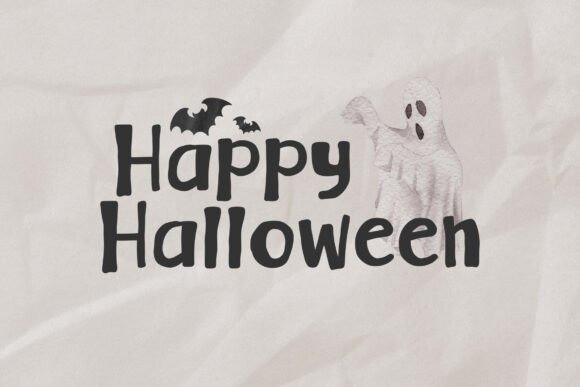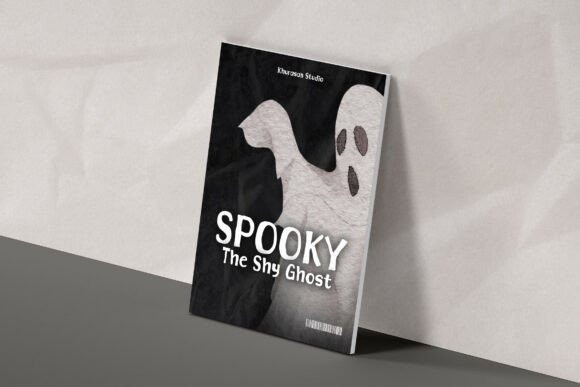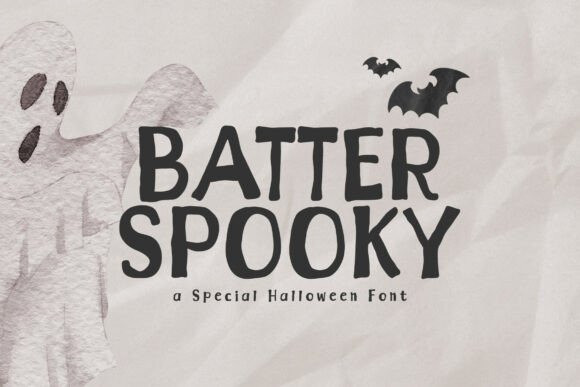
Batter Spooky Font
Batter Spooky Font is a modern horror-themed display font, crafted to bring a mysterious vibe while keeping your design trendy and eye-catching. Batter Spooky combines scary and stylish, making your designs not only terrifying but also unforgettable! Giving you the freedom to create without limits.